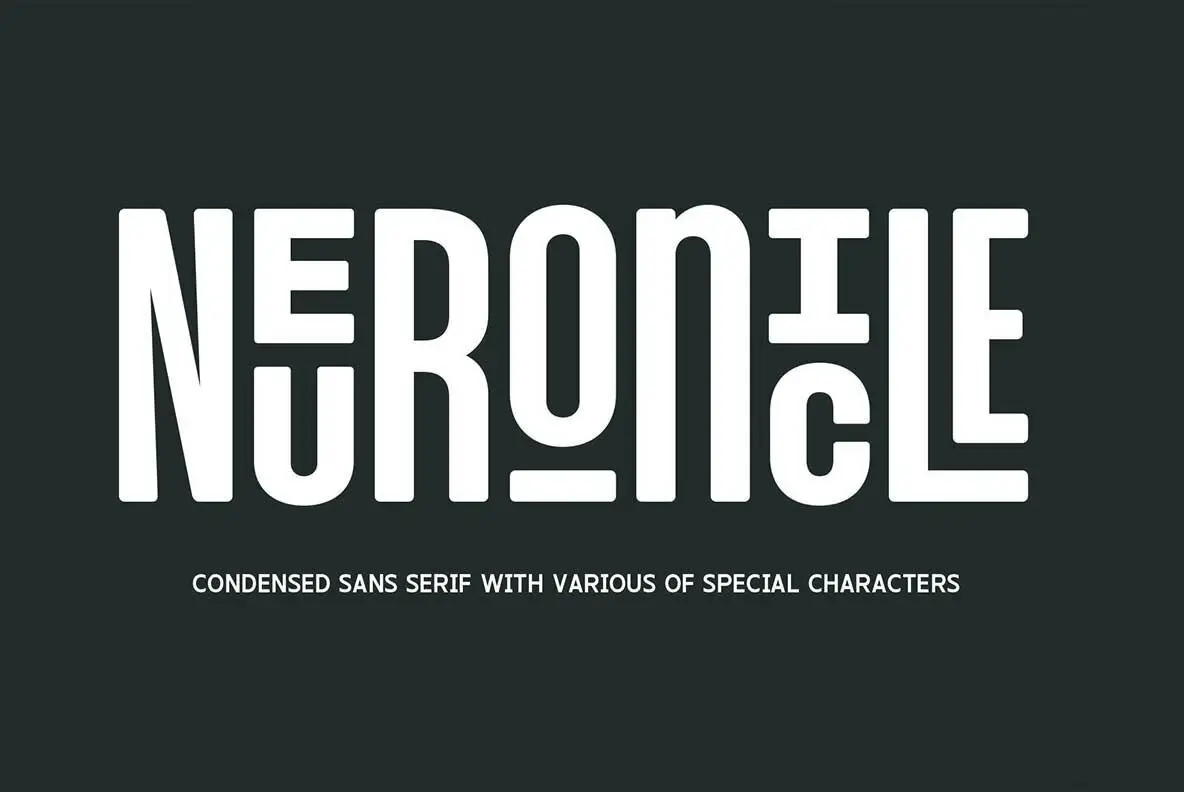
Neuronicle Font
Neuronicle Regular
Discover Neuronicle, a condensed sans font that marries playfulness with expressiveness. Its bold weight and rounded corners deliver a relaxed yet elegant vibe, perfectly balancing fun and sophistication. Designed primarily for headlines and display use, Neuronicle captivates with its distinctive personality. With an array of ligatures, special alternates, and small caps, Neuronicle invites creativity in crafting dynamic and joyful typography compositions. Elevate your design projects by mixing and matching styles to highlight this font's unique and upbeat charm.Neuronicle: A Playful Sans Font